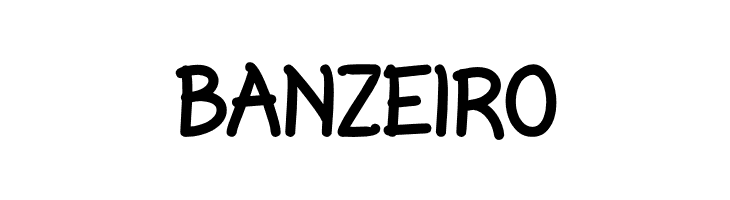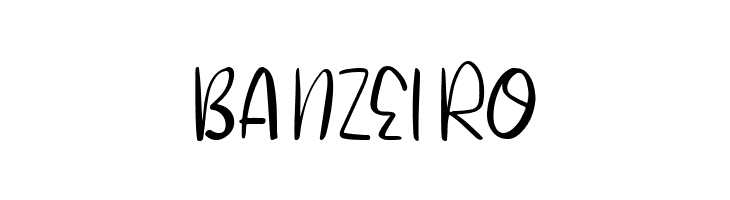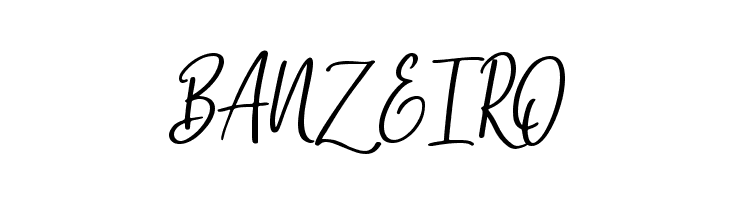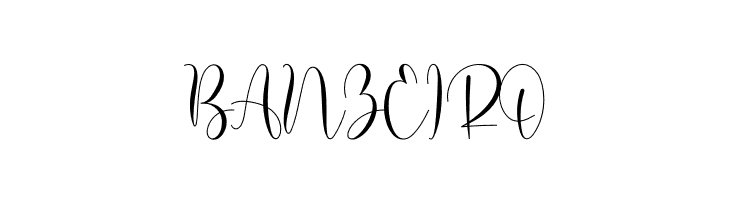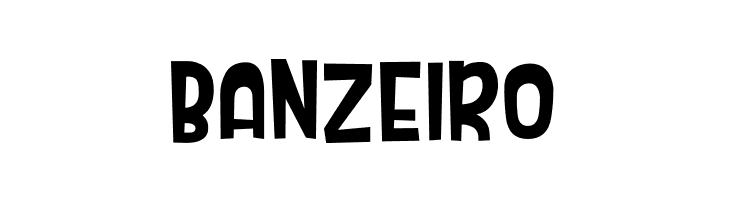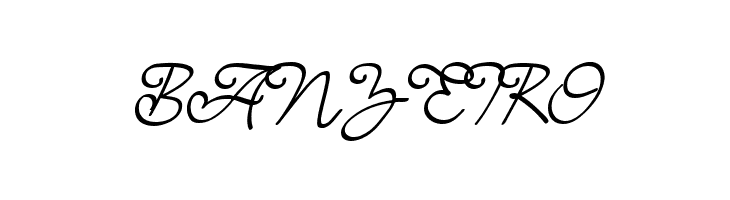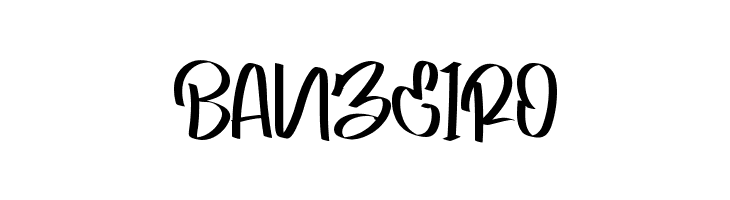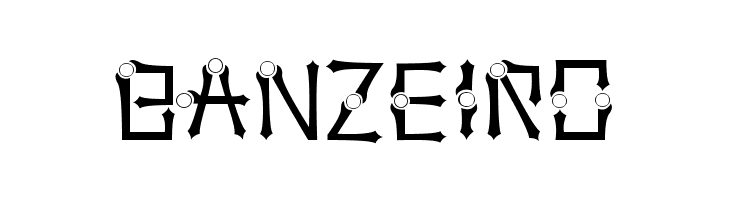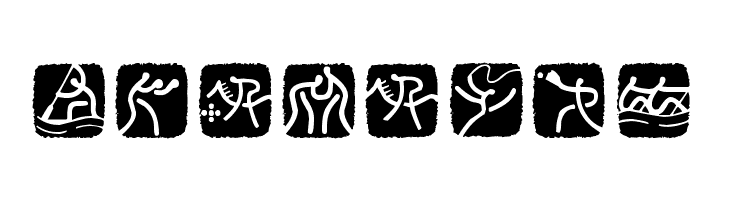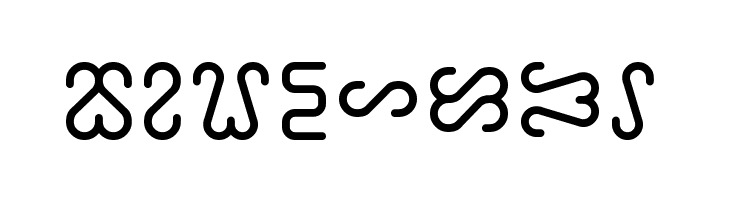
A sophisticated, elegant handwritten font with fluid, graceful strokes.
A distressed, grungy font with bold, textured characters.
A graceful and elegant script font with flowing cursive letters and decorative flourishes.
A bold, playful font with a spooky, hand-drawn style.
A bold, hand-drawn font with an energetic and playful style.
A bold, playful font with a hand-drawn, cartoonish style.
Cartoonish, decorative font made of unique character illustrations.
A playful, hand-drawn font with a whimsical and friendly style.
A playful, hand-drawn font with tall, narrow characters and a whimsical style.
A playful, brush-stroke inspired font with a hand-drawn aesthetic.
An ornate Old English style font with heart embellishments and a distressed texture.
Cartoonish Roman-themed pictorial font with detailed illustrations.
A whimsical, cartoon-like font with unique illustrative characters.
A distressed, vintage-style font with a textured, rugged appearance.
A bold, expressive script font with elegant, flowing cursive letters.
A vintage, typewriter-inspired serif font with a bold, distressed appearance.
A charming script font with fluid, connected strokes and a handwritten style.
A dynamic and flowing script font with elegant cursive letterforms.
A modern, elegant script font with a flowing, handwritten style.
A playful and bold font with unique character shapes and a modern twist.
A dynamic and expressive script font with a handwritten style.
A bold, decorative font with a 3D shadow effect and striped pattern.
A classic serif font with high contrast and elegant, elongated lines.
A decorative, serpentine font with bold, flowing curves.
A bold, decorative font with interconnected loops and curves, ideal for creative display use.
A playful, hand-drawn font with a quirky and lively design.
Playful handwritten script font.
A decorative font with vine-like, organic letterforms.
A bold, modern font with geometric lines and tight spacing.